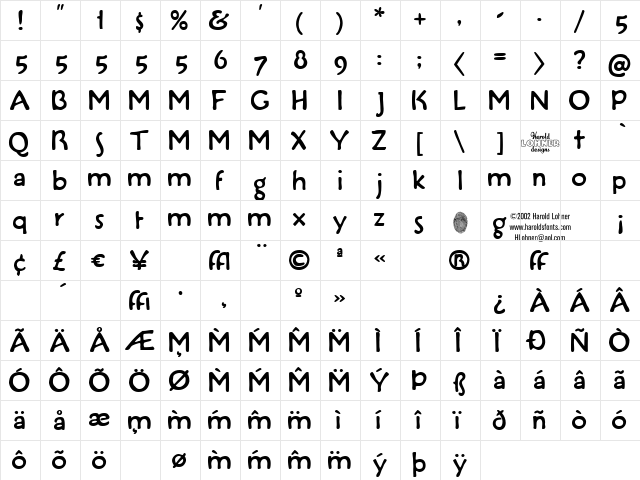
ThanksgivingDemo Regular
Design Context for ThanksgivingDemo Typeface
ThanksgivingDemo takes a measured approach to typography — its balanced proportions and neutral character make it a reliable workhorse for both digital and print work.